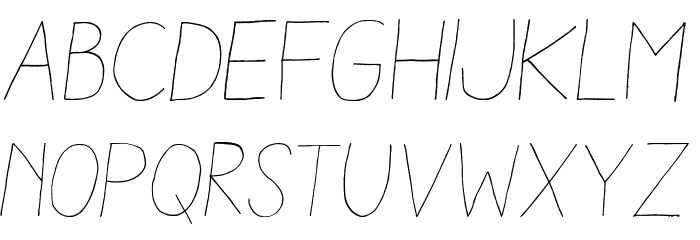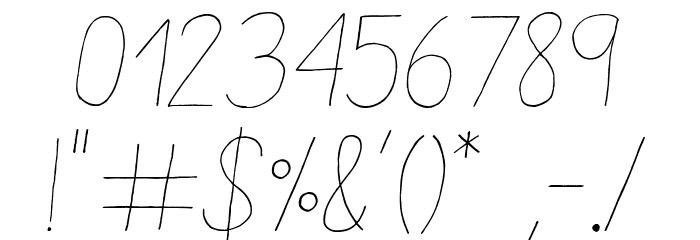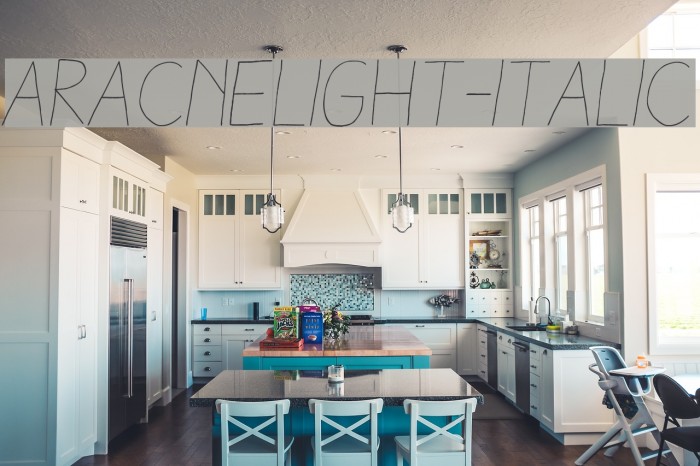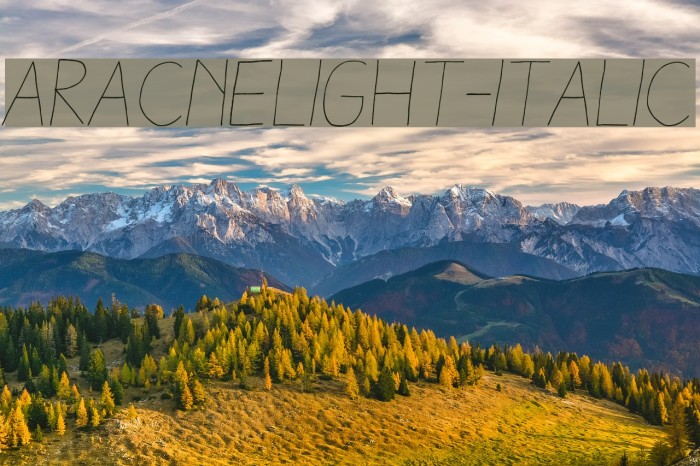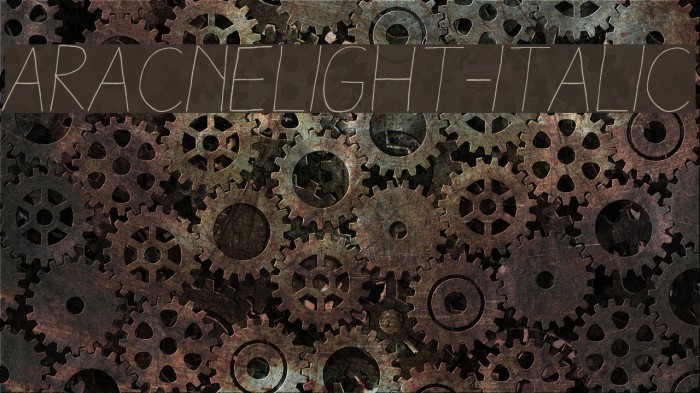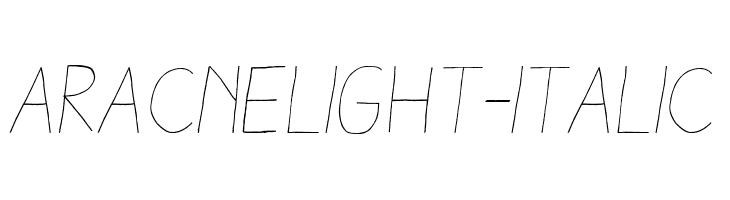
AracneLight-Italic Font
This font features a delicate and light design with a handwritten style, characterized by its thin strokes and slight slant, giving it an elegant and airy appearance. The uppercase and lowercase letters maintain a consistent flow, with a natural, organic feel. The numerals and special characters complement the alphabet with a similar lightness and simplicity. The overall look is clean and minimalistic, making it suitable for projects that require a touch of sophistication without overwhelming the viewer.
A light, handwritten-style font with thin strokes and a slight slant.
- Font: AracneLight-Italic
by antipixel - Weight: Italic
- Proposed Projects: Ideal for wedding invitations, personal branding, elegant stationery, and minimalist design projects.
- Category: Handwritten
- Weight: Light
- Overall Style: Elegant and Minimalistic
- Use Case: Headlines, Invitations, Personal Branding